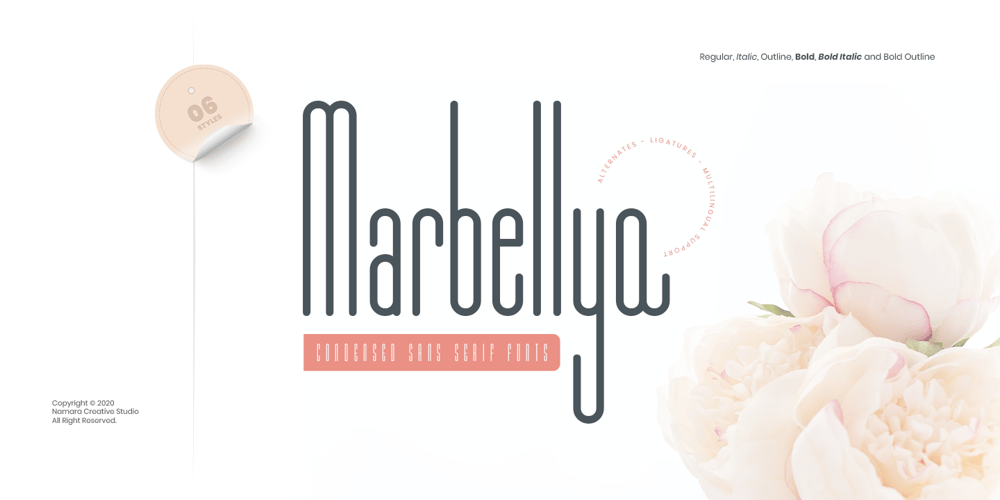
Marbellya Font Family was designed by Toni Setiawan, Eep Apringga and published by Namara Creative Studio. Marbellya contains 6 styles and family package options. Marbellya an Condensed Sans Serif Font with luxurious style. Available in 6 styles : Regular, Italic, Outline, Bold, Bold Italic and Bold Outline. Included alternates, ligatures and multilingual support. It’s perfect for headlines, logos, quotes, packaging, magazine covers, editorial design, and many more project with suitable purpose!